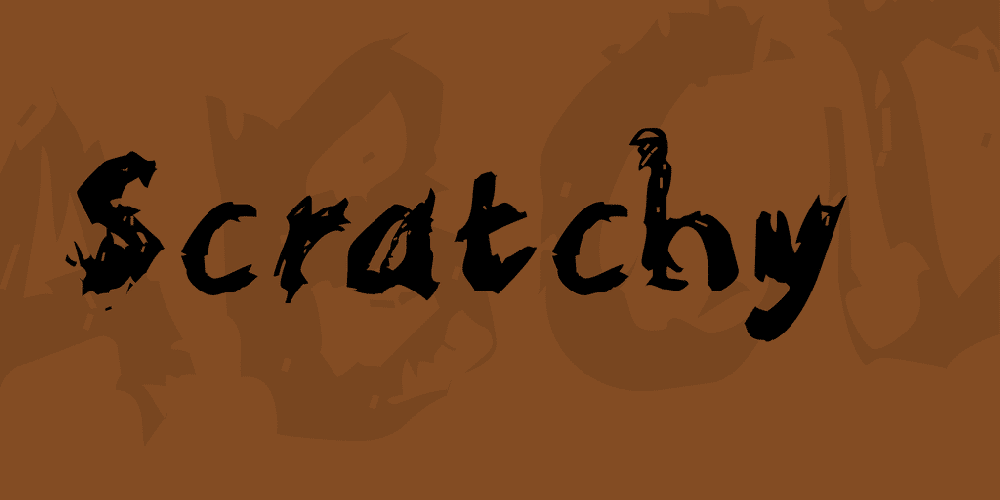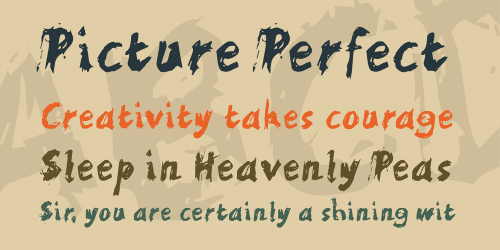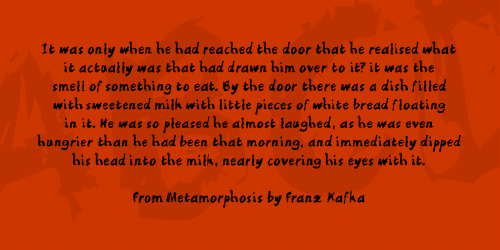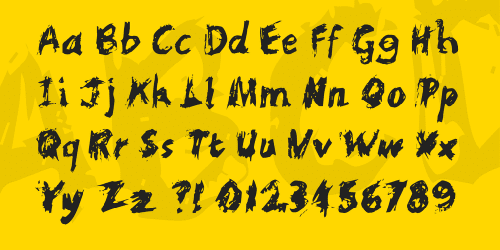
Can’t get away from it can you? The pen on paper mess, when scanned and traced looks great as a font. Lazy, but true. Well, ok, lots of people have done this sorta thing but even more have done handwriting fonts which I think is even worse.